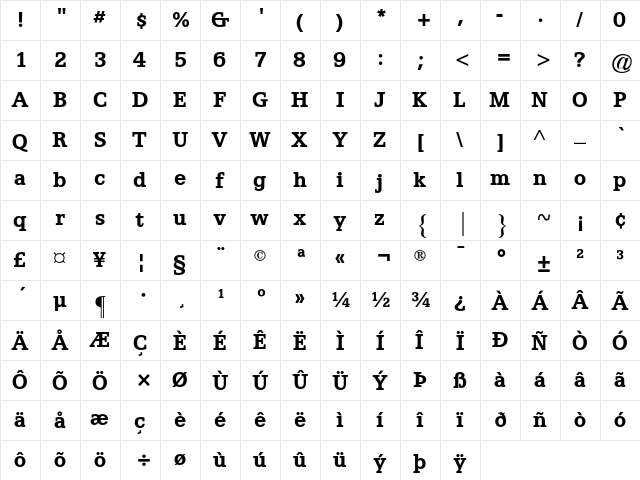
Egyptian AT Bold
Design Context for Egyptian AT Typeface
Egyptian AT combines the readability of serif typography with the visual weight of a slab construction, resulting in a typeface that feels both authoritative and approachable. The heavy weight commands attention and anchors typographic hierarchies.
Suited to magazines, political campaign materials, bold packaging, and any setting where authority matters.
Pro Tip: Use Egyptian AT for headlines and subheadings where its slab serifs can make an impression. It also holds up well in mid-size body copy thanks to its sturdy construction.